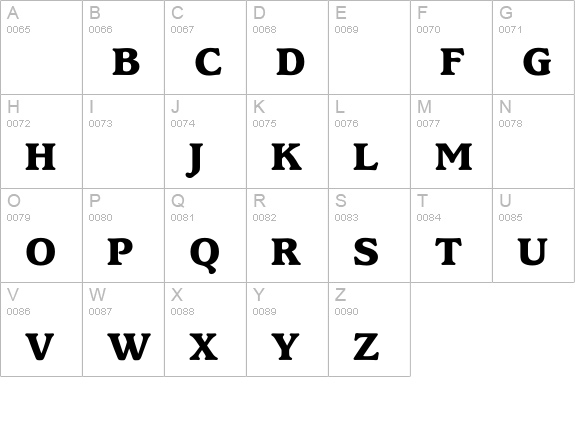
KingsrowExtraBold Font Details
KingsrowExtraBold is a striking and powerful font that demands attention. With its bold and assertive letterforms, this font exudes confidence and strength. It is perfect for headlines, logos, and any design project that requires a strong visual impact. The extraordinary feature of KingsrowExtraBold is that it is available for free. Yes, you read that right - completely free! This means that you can download and use this font without any restrictions or limitations. It is a rare gem in the world of typography, where high-quality fonts often come with a hefty price tag. To make it even more accessible, KingsrowExtraBold can be freely downloaded at FontsMarket.com. This reputable website offers a vast collection of fonts, and among them, KingsrowExtraBold stands out as a free and extraordinary option. Whether you are a professional designer or a passionate hobbyist, KingsrowExtraBold is a font that will elevate your designs to new heights. Its bold and impactful presence will captivate your audience and leave a lasting impression. So why wait? Take advantage of this incredible offer and download KingsrowExtraBold for free at FontsMarket.com today. Unleash the power of this font and let your creativity soar like never before!